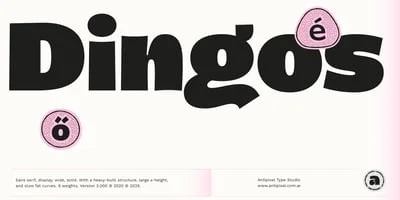
Dingos Font
Dingos Font is perfect for Australian brands, outback tourism, wildlife organizations, adventure travel, outdoor gear companies, rugged packaging, and wild spirit communications. This untamed typeface brings Australian wilderness charm and adventurous energy to outback-inspired design projects.
Dingos Font is exciting because it captures the wild spirit of the Australian outback with its rugged letterforms that convey freedom and untamed adventure while maintaining exceptional readability and wilderness appeal across outdoor and adventure applications.
The Dingos Font family includes regular and weathered variations with wild character elements and outback-inspired styling details. This adventurous collection provides designers with rugged options for creating memorable and authentically wild brand experiences.
Dingos Font offers designers access to a wildly crafted typeface that embodies the untamed spirit and rugged beauty of Australian wilderness and outback adventure. This adventurous font features boldly designed letterforms with wild details that create immediate associations with Australian outback, wilderness freedom, and adventurous spirit. The typeface showcases rugged proportions and wild aesthetics that enhance outdoor communications while maintaining professional functionality and broad accessibility. Its untamed character makes it particularly suitable for adventure brands and outdoor companies that require typography capable of conveying wilderness spirit, outback adventure, and wild freedom. Dingos Font delivers exceptional wild impact for applications where tame fonts feel inappropriate for adventure communications and outback lifestyle branding. The font's wild appeal and rugged aesthetic make it an essential tool for designers working on projects that require typographic expression of wilderness adventure, outback spirit, and wild freedom that resonates with audiences seeking authentic adventure experiences and wild visual communication.